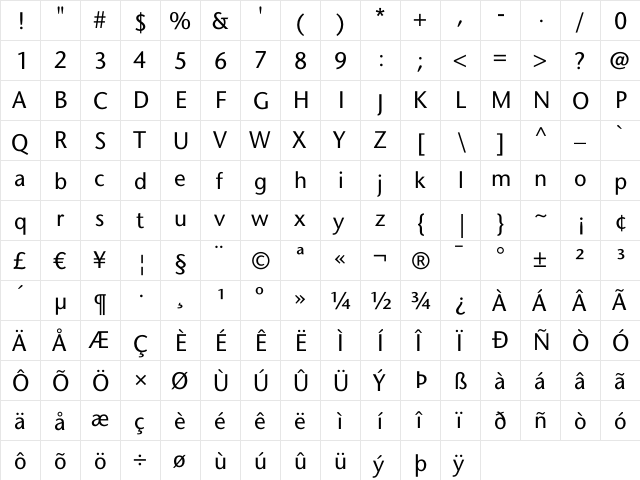
CaltexNovaSans Regular Font Preview
CaltexNovaSans Regular
CaltexNovaSans Regular Font Details
Design Context for CaltexNovaSans Typeface
CaltexNovaSans is a composed and adaptable typeface that performs quietly and consistently across a wide range of design contexts.